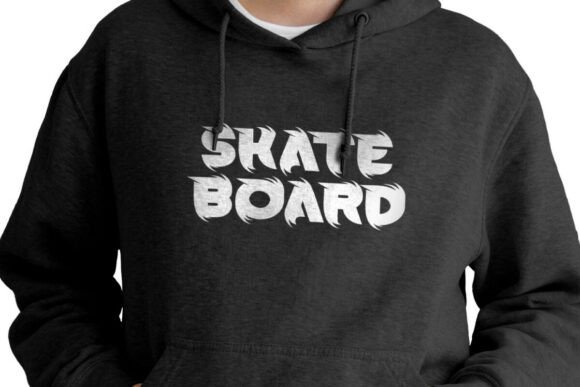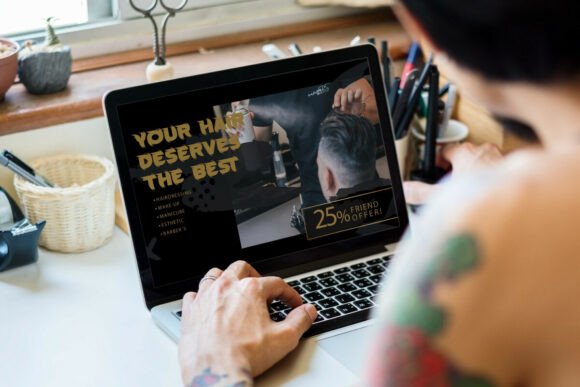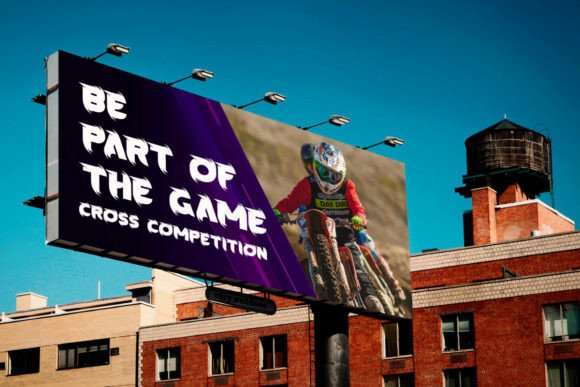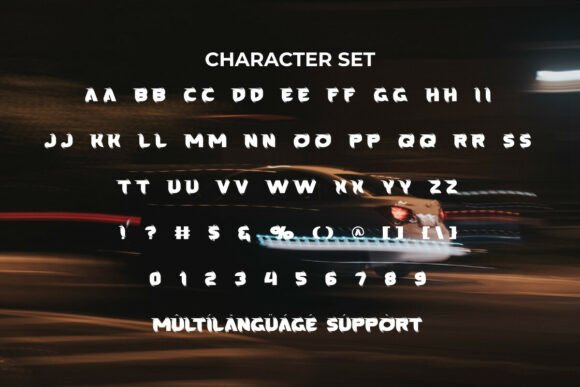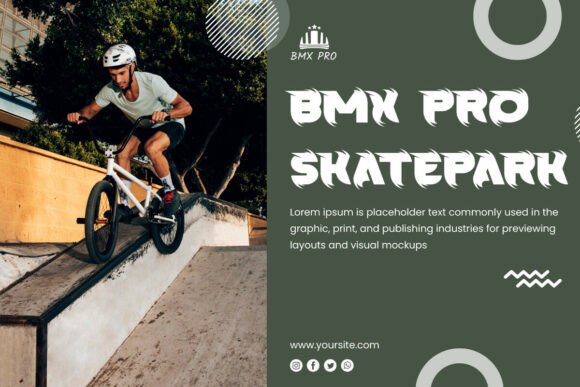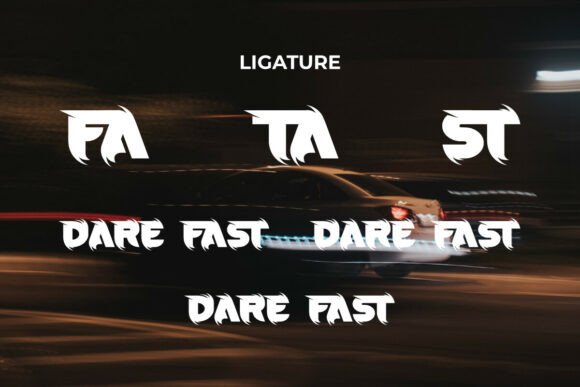
The Thrill of Speed: Unleashing Creativity with Dare Fast Font
Imagine you’re standing at the starting line, heart pounding, adrenaline rushing. The crowd is cheering, and the sound of revving engines fills the air. This is the moment when speed and style come together in perfect harmony. For designers, this feeling is a constant quest – to create something that captures the essence of speed and excitement. Enter Dare Fast Font, a bold, sporty, and dynamic font that embodies the thrill of racing.
Dare Fast Font is more than just a font – it’s a statement piece that adds a touch of speed and style to any design. With its decorative edges, shading, and ligature characters, it’s the perfect choice for designers looking to make a bold impression. Whether it’s a billboard, a brand image, or a custom design, Dare Fast Font is the ultimate tool to unleash your creativity and take your designs to the next level.
Dare Fast Font Key Features
- Font Style: A unique, high-speed font designed for fast reading and typing, ideal for applications requiring quick data entry.
- Character Set: Supports a wide range of languages, including Latin, Cyrillic, and Greek alphabets, making it suitable for global applications.
- Unique Characteristics: Features a custom-designed letterform and spacing system to minimize reading time and improve accuracy.
Dare Fast Font Review
I recently had the chance to experiment with the Dare Fast Font, and here’s my honest take on it.
- The font’s unique blend of modern and vintage styles is quite striking. It’s a great choice for anyone looking for a distinctive look.
- The font’s high legibility makes it suitable for both body text and headings, which is a plus.
- The font family includes a decent number of weights and styles, providing a good range of options for designers.
- The font’s design may not be to everyone’s taste. Some users might find it too bold or overpowering.
- The font’s x-height is a bit inconsistent across different weights, which can affect readability.
Overall, I’d say the Dare Fast Font is a solid choice for designers who want a unique and attention-grabbing font. However, it may not be the best fit for projects that require a more conservative or neutral design aesthetic.
Dare Fast Font Practical Application Guide
The Dare Fast Font is a bold, modern sans-serif font designed for high-impact text display. To use it in your design projects, follow these steps:
Tips for Getting the Most Out of Dare Fast Font
Use the Dare Fast Font to create eye-catching headings, titles, and subtitles. Experiment with different font sizes, colors, and combinations to achieve a bold, modern look.
The Dare Fast Font is ideal for:
- Headlines and titles
- Branding and logos
- Advertising and promotional materials
Alternatives to “Dare Fast Font” for Designers
Great Vibes Font is a modern and elegant script font that is perfect for creating a luxurious and high-end look. It is ideal for use in wedding invitations, luxury branding, and any design that requires a touch of sophistication. Compared to Dare Fast Font, Great Vibes Font has a more refined and polished look, making it suitable for high-end designs.
Pacifico Font is a beautiful and elegant script font that is inspired by the Pacific coast. It is perfect for use in designs that require a relaxed and beachy vibe. Compared to Dare Fast Font, Pacifico Font has a more laid-back and casual look, making it suitable for designs that require a relaxed atmosphere.
Carolyna Pro Font is a modern and elegant script font that is perfect for creating a sophisticated and high-end look. It is ideal for use in luxury branding, wedding invitations, and any design that requires a touch of elegance. Compared to Dare Fast Font, Carolyna Pro Font has a more refined and polished look, making it suitable for high-end designs.
Dancing Script Font is a beautiful and elegant script font that is perfect for creating a playful and fun look. It is ideal for use in designs that require a touch of whimsy and personality. Compared to Dare Fast Font, Dancing Script Font has a more playful and carefree look, making it suitable for designs that require a lighthearted atmosphere.
Q: Can I use Dare Fast Font for print materials?
Yes, Dare Fast Font can be used for print materials, such as business cards, brochures, and posters. However, it’s essential to consider the font’s readability and legibility at smaller sizes. For print materials, it’s recommended to use a font size of at least 10pt for body text and 14pt for headings.